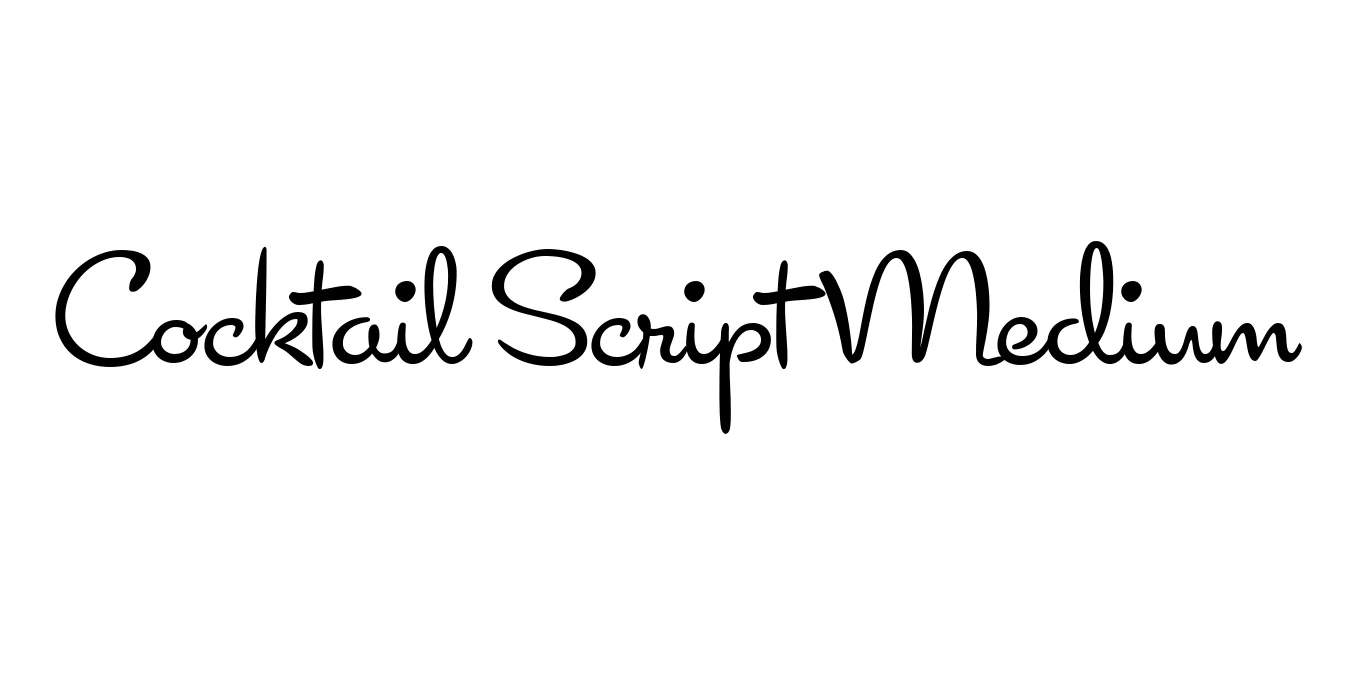
Cocktail Script Medium
Designed by David Quay
Cocktail Script Medium is a sophisticated brush-style script typeface originally designed by David Quay. Drawing inspiration from the vibrant and expressive hand-lettering styles of the 1950s and 1960s, this font captures the essence of mid-century commercial art. It features fluid, rhythmic strokes that mimic the natural flow of a pointed brush, making it ideal for creating designs that require a touch of retro elegance and manual craftsmanship.
The medium weight of the script offers a perfect balance between legibility and character, ensuring that it remains readable even in complex layouts. Over the decades, Cocktail Script has become a staple for designers looking to evoke nostalgia, particularly in the realms of hospitality, entertainment, and fashion. Its timeless appeal lies in its ability to blend formal script structures with a casual, inviting personality.
Cocktail Script Medium Best Uses
Perfect for logos of bars, cafes, and boutique fashion brands.
Excellent for headings in cocktail menus and restaurant signage.
Adds a personalized, hand-lettered touch to wedding and party invites.
Great for vintage-style product labels and high-end artisanal packaging.